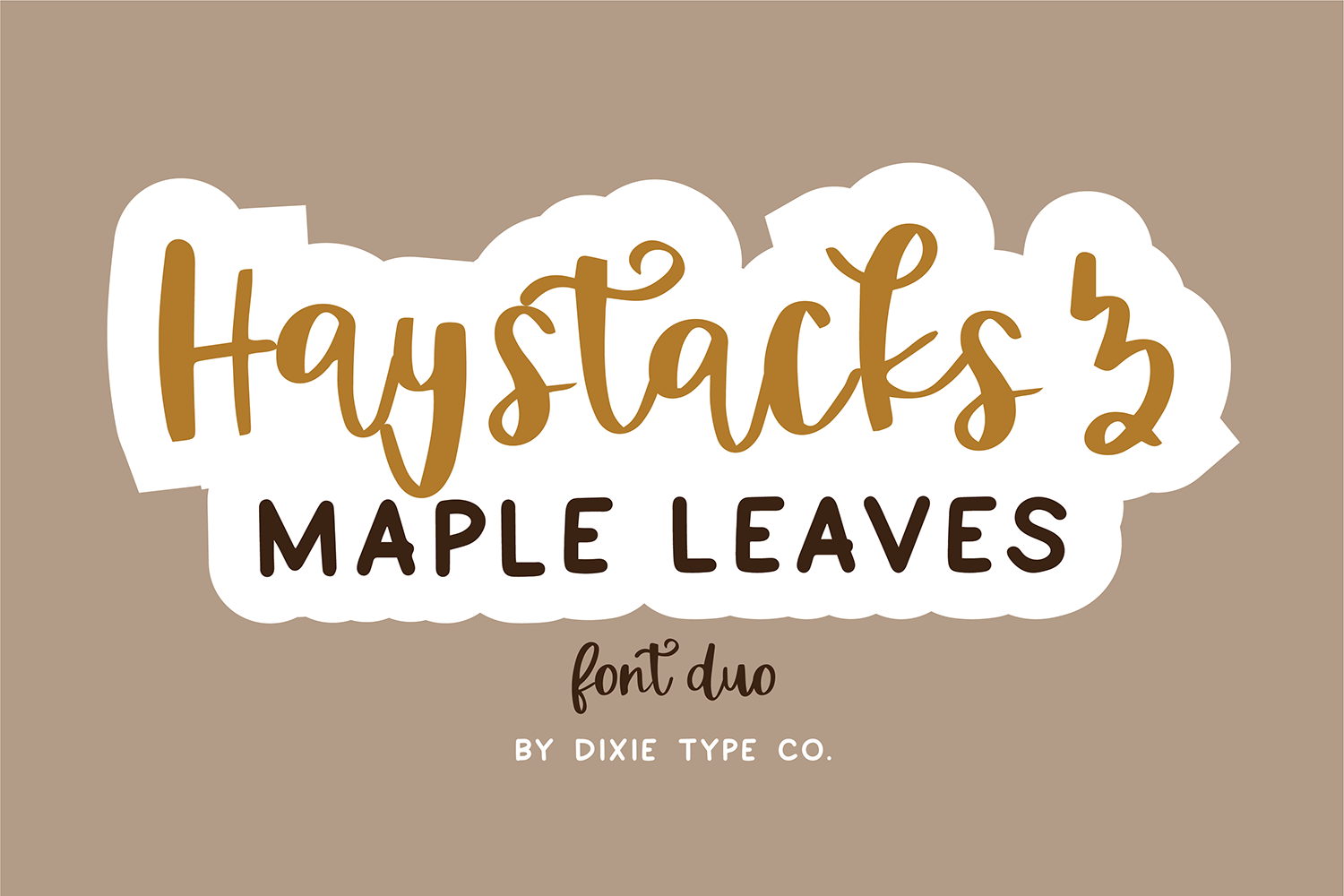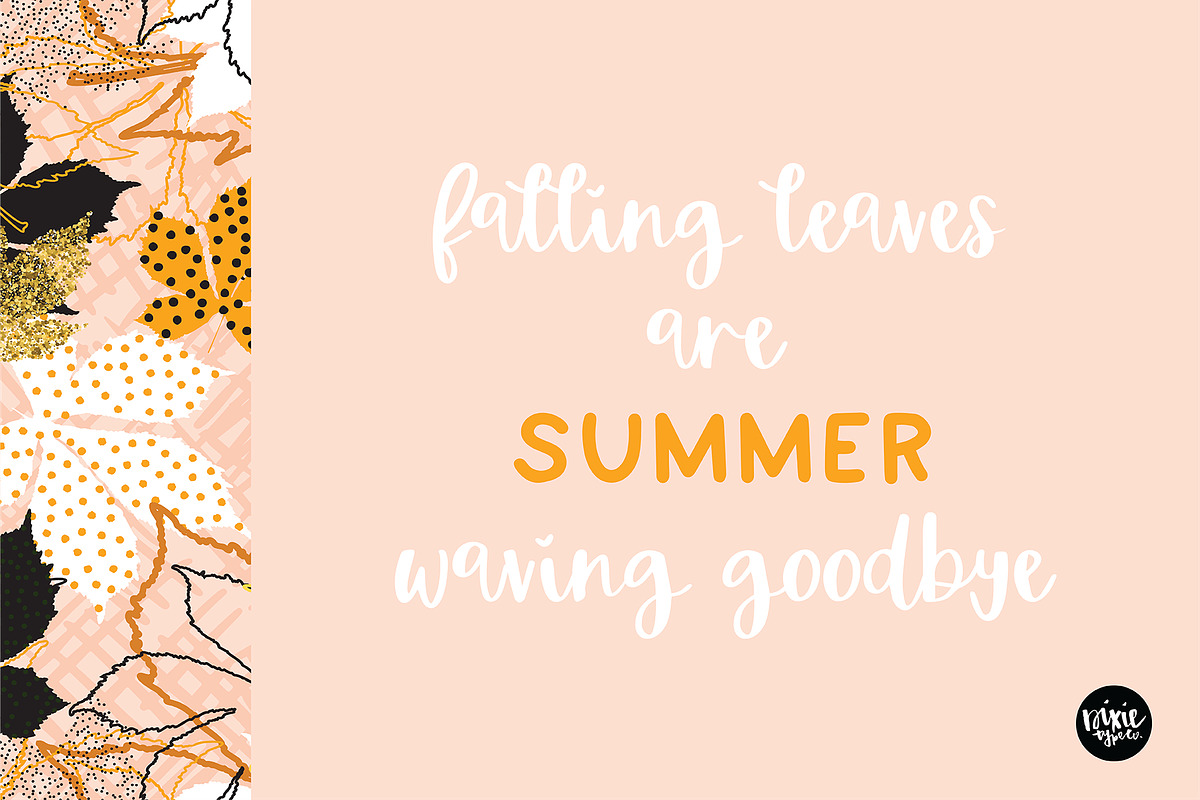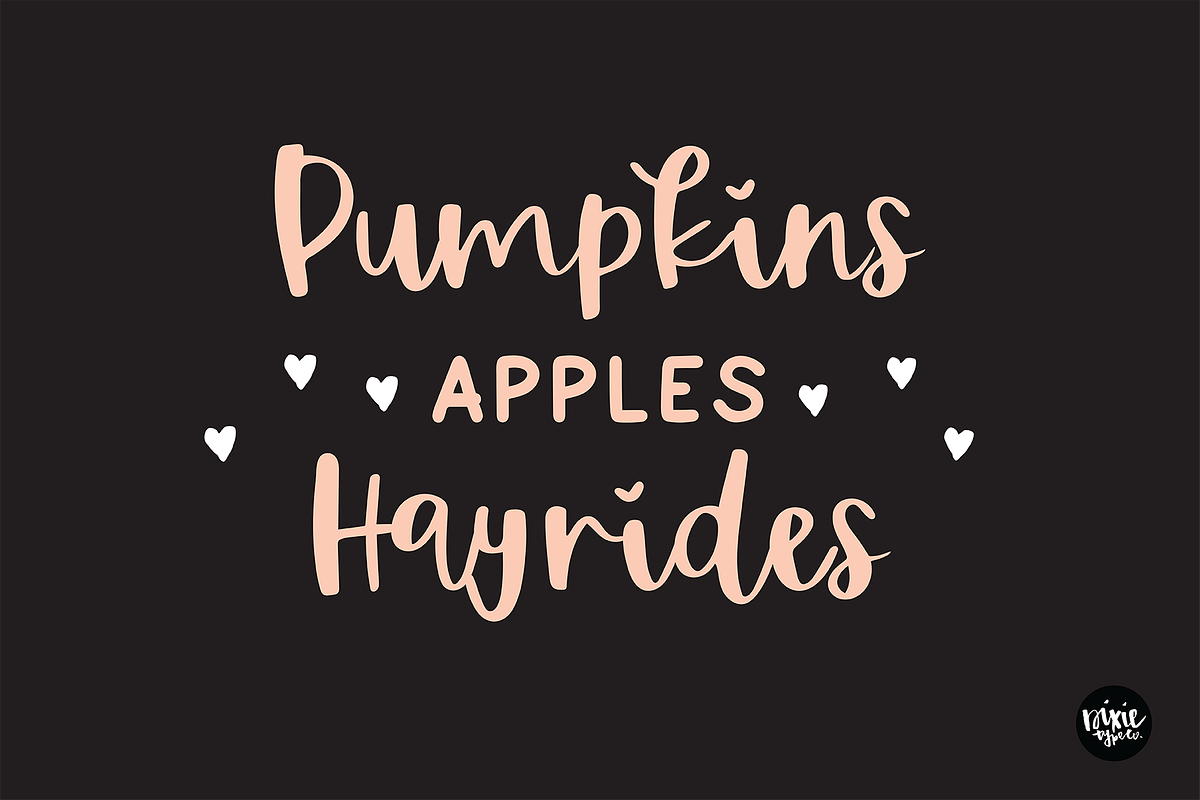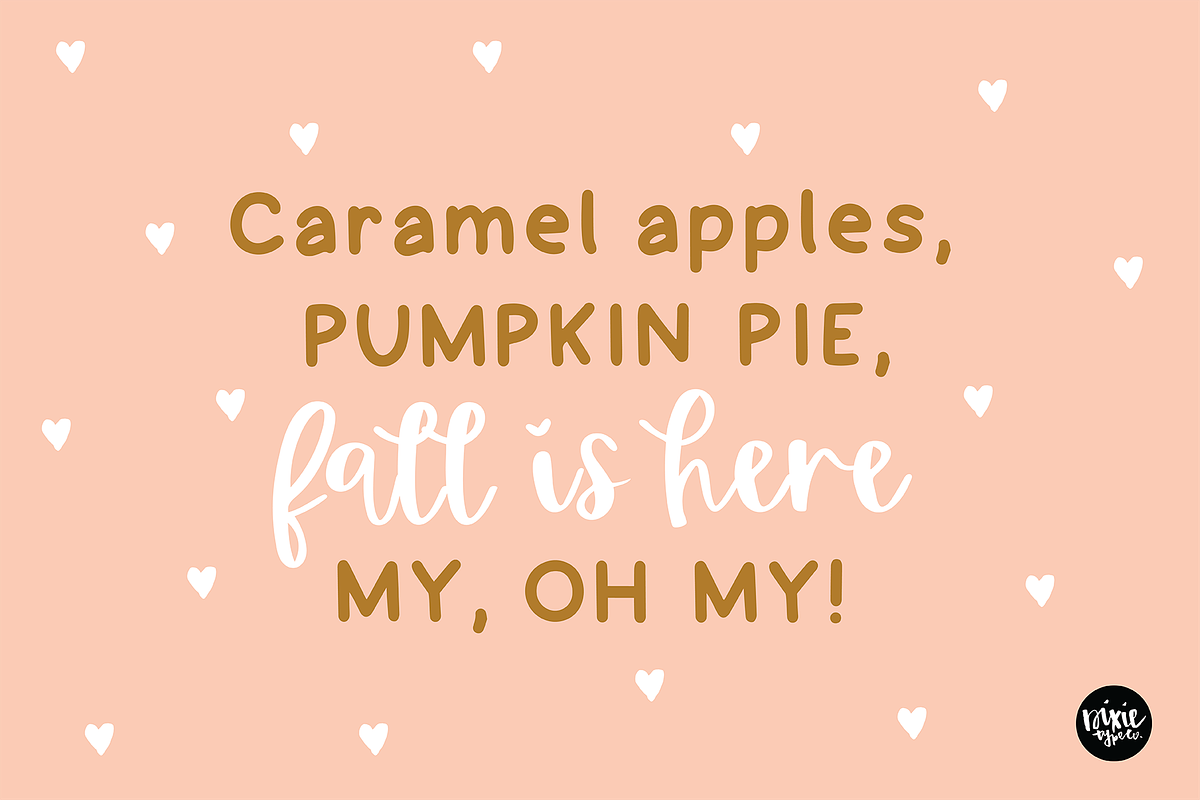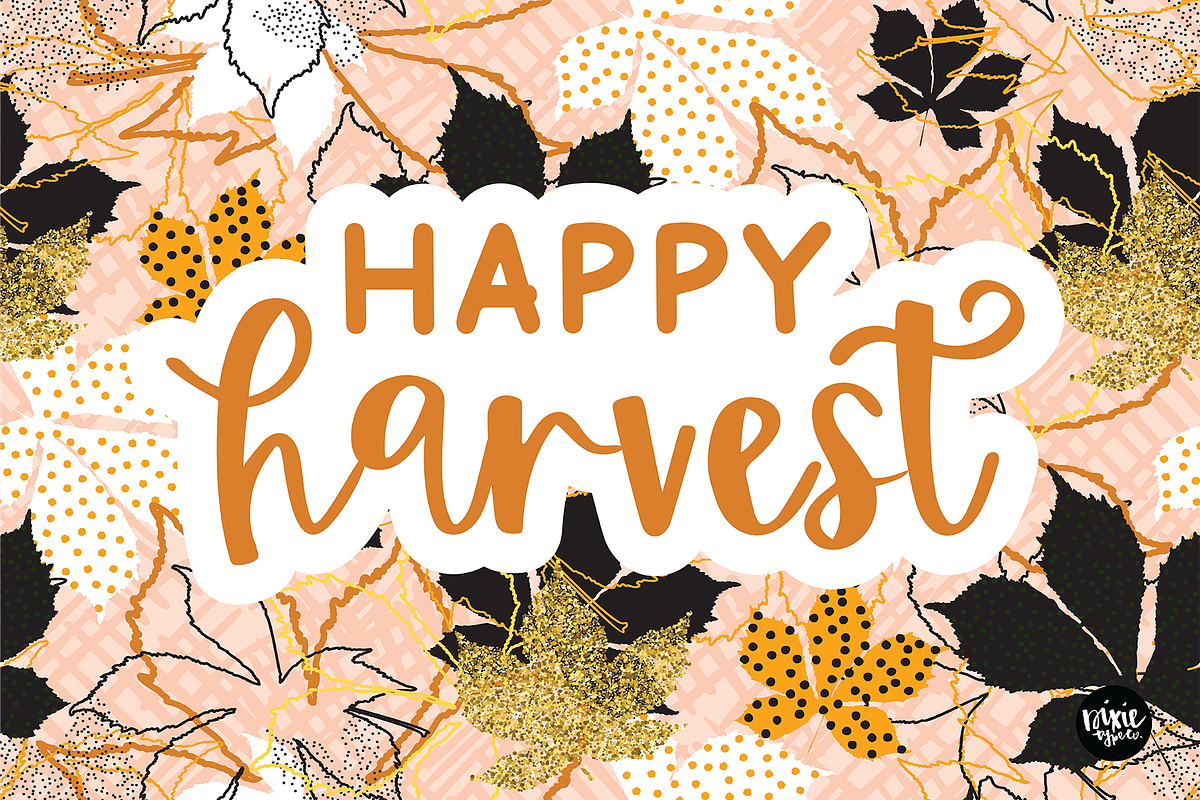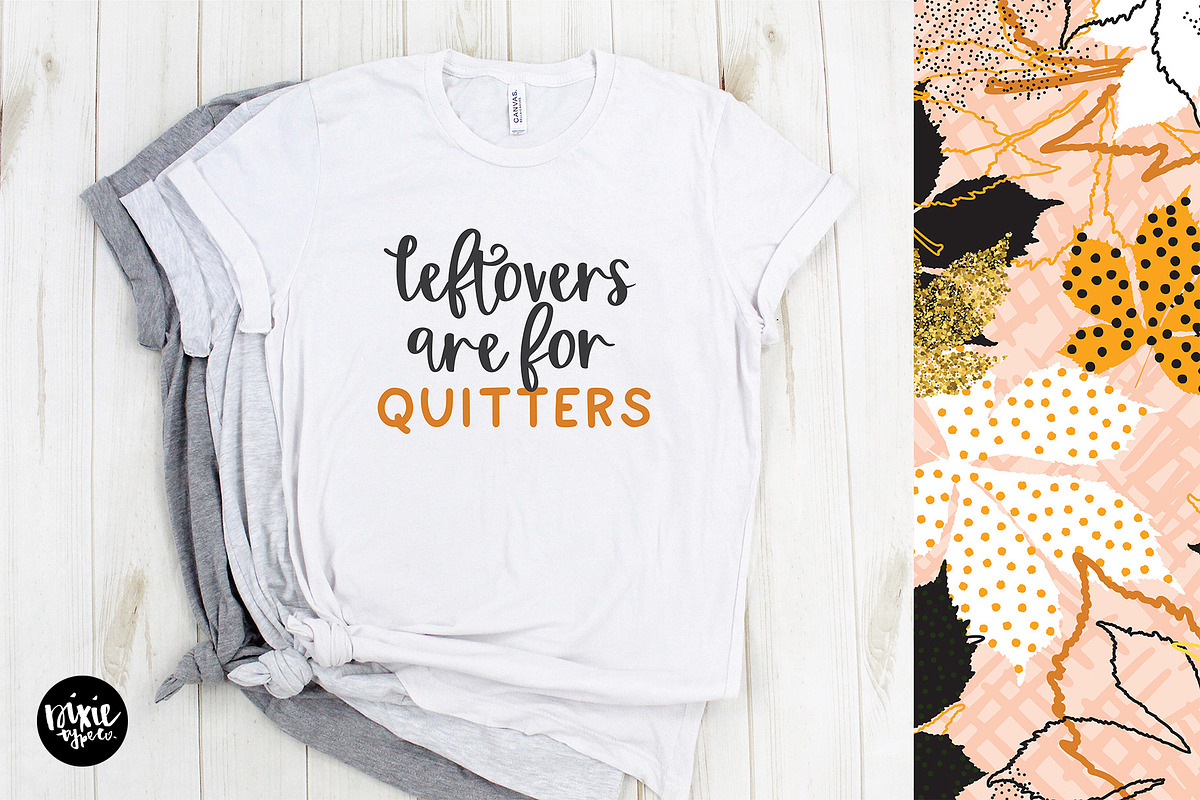
HAYSTACKS and MAPLE LEAVES Font Duo
"Haystacks and Maple Leaves" script + sans font duo
{ Typographic font duo hand lettered with love by Dixie Type Co. }
- Haystacks
- Maple Leaves
These fonts were made as a pair. They work extremely well together or on their own! Both fonts include all upper and lowercase letters, basic punctuation, and numbers.